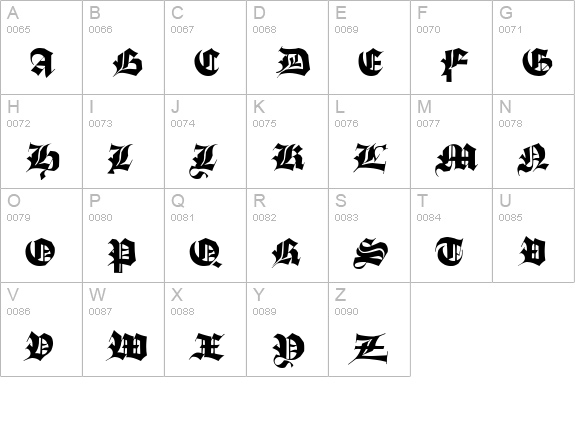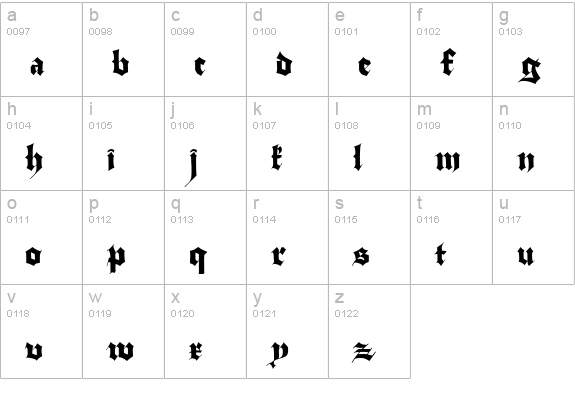
Stuttgart Gothic Demo Font Details
The Stuttgart Gothic Demo font is a captivating and versatile display typeface that embodies the essence of Gothic architecture with its intricate and ornate letterforms. This striking font is perfect for creating bold headlines, posters, and branding projects that demand attention. Designed with precision and attention to detail, Stuttgart Gothic Demo features sharp, angular lines and dramatic flourishes that add a touch of drama and sophistication to any design. Its unique style sets it apart from other Gothic-inspired fonts, making it a standout choice for designers looking to make a statement. What's even better is that the Stuttgart Gothic Demo font is completely free to download at FontsMarket.com. Whether you're a seasoned designer or just starting out, this font is a valuable addition to your collection. So why wait? Download Stuttgart Gothic Demo today and unleash your creativity with this stunning typeface.